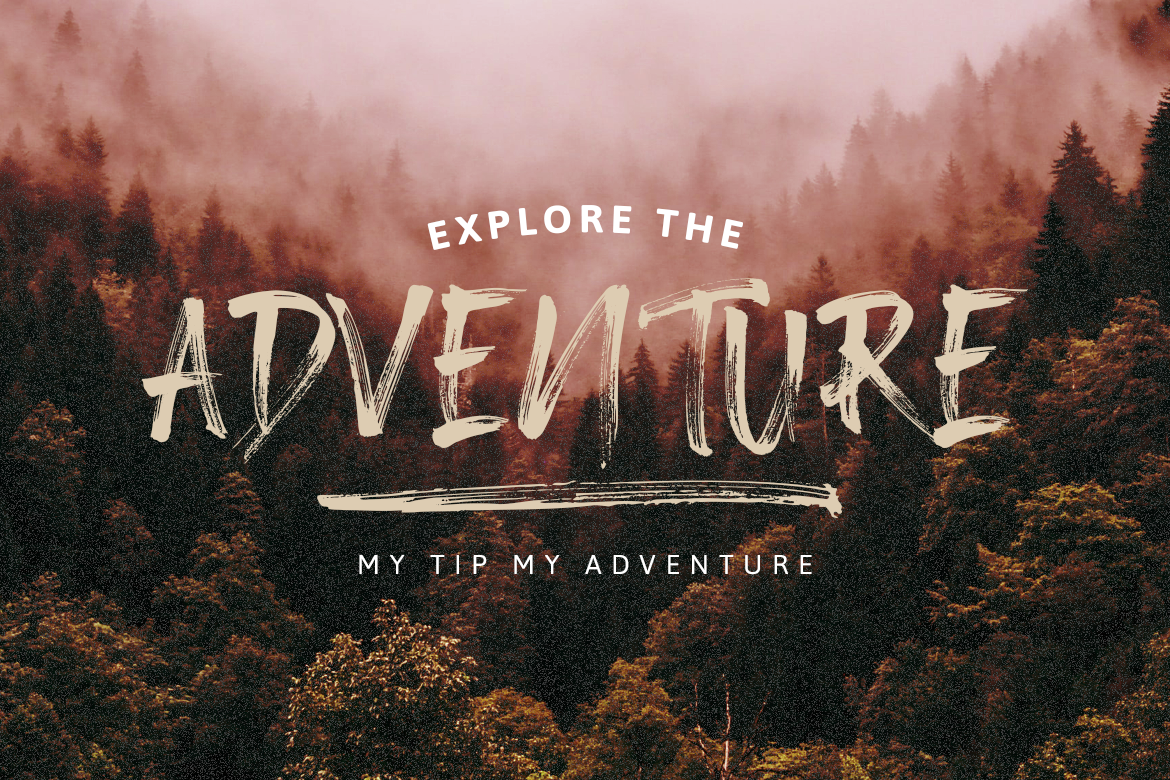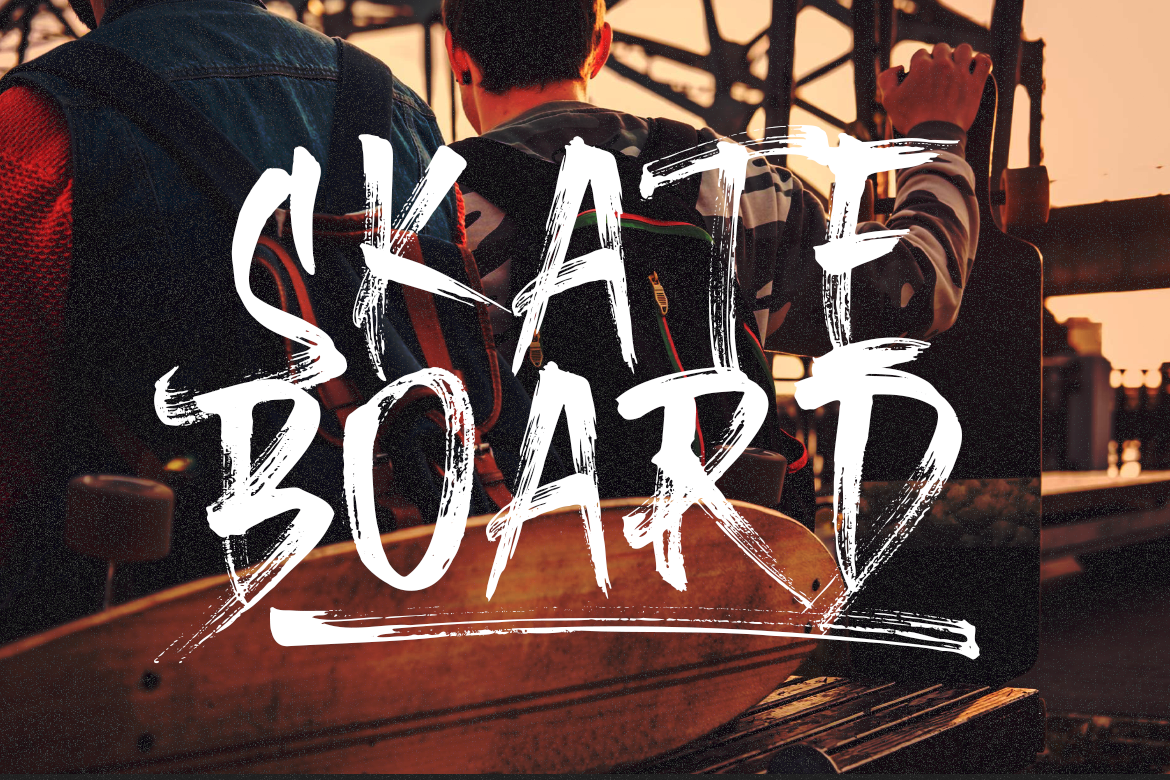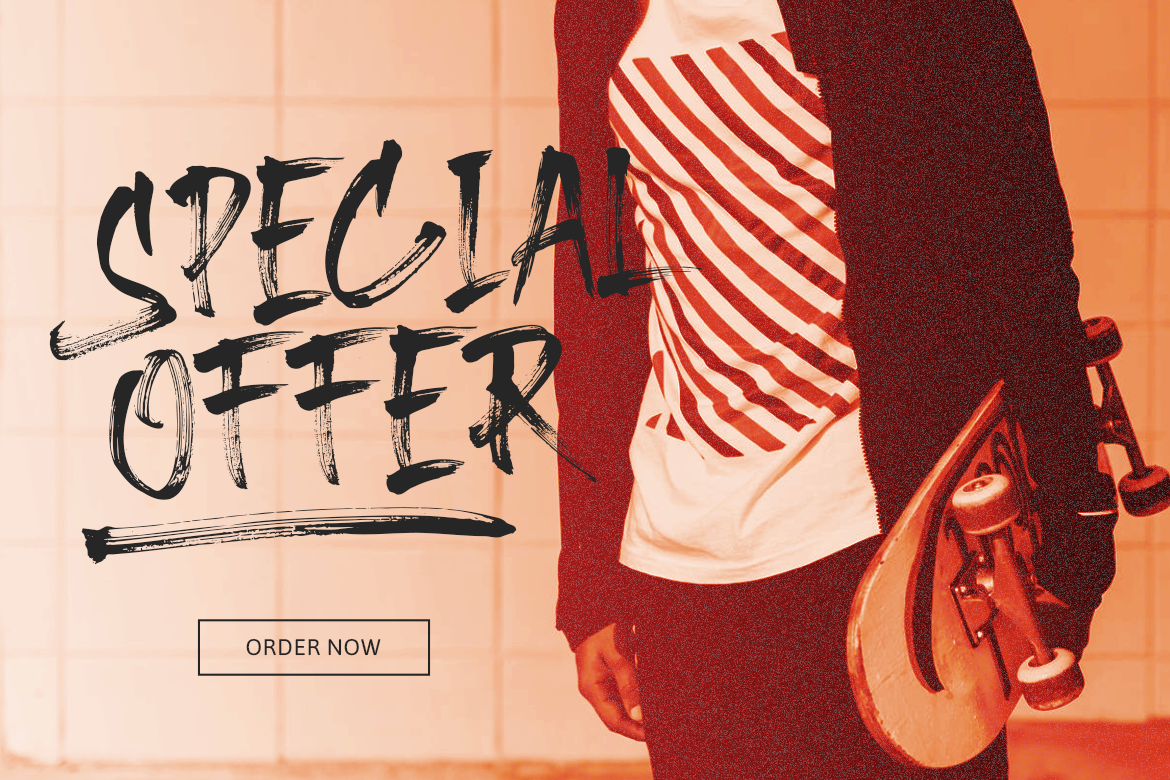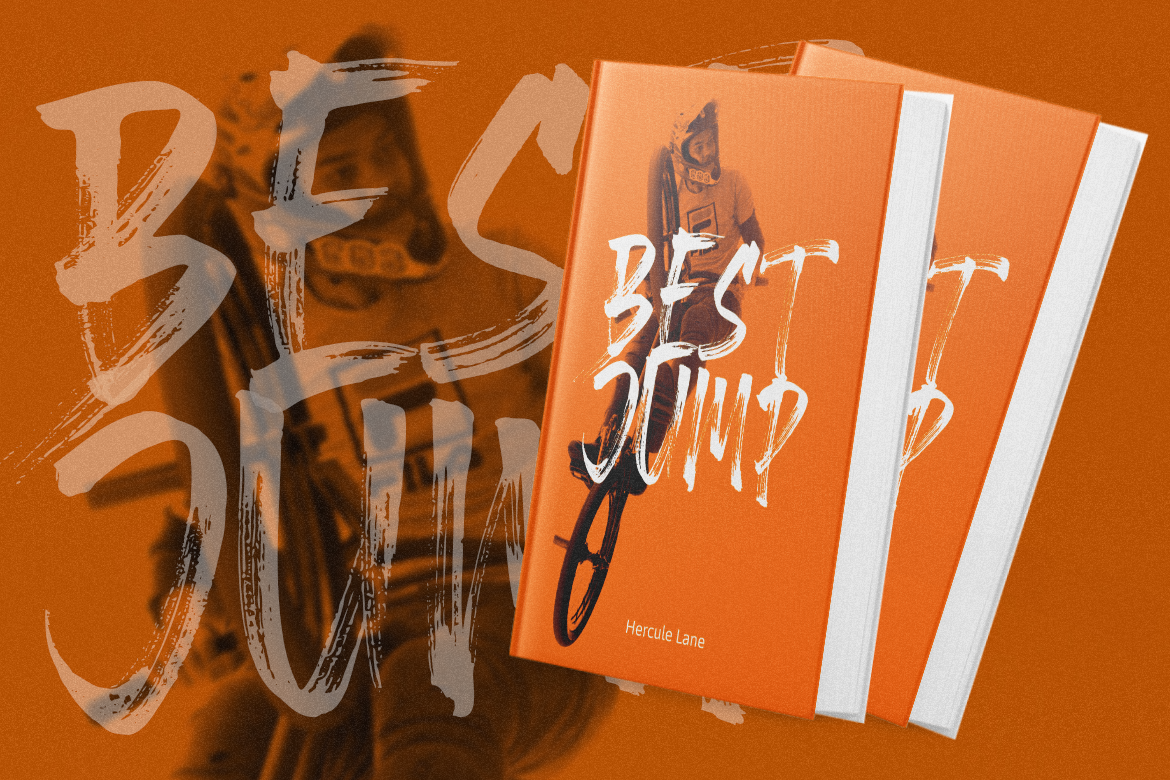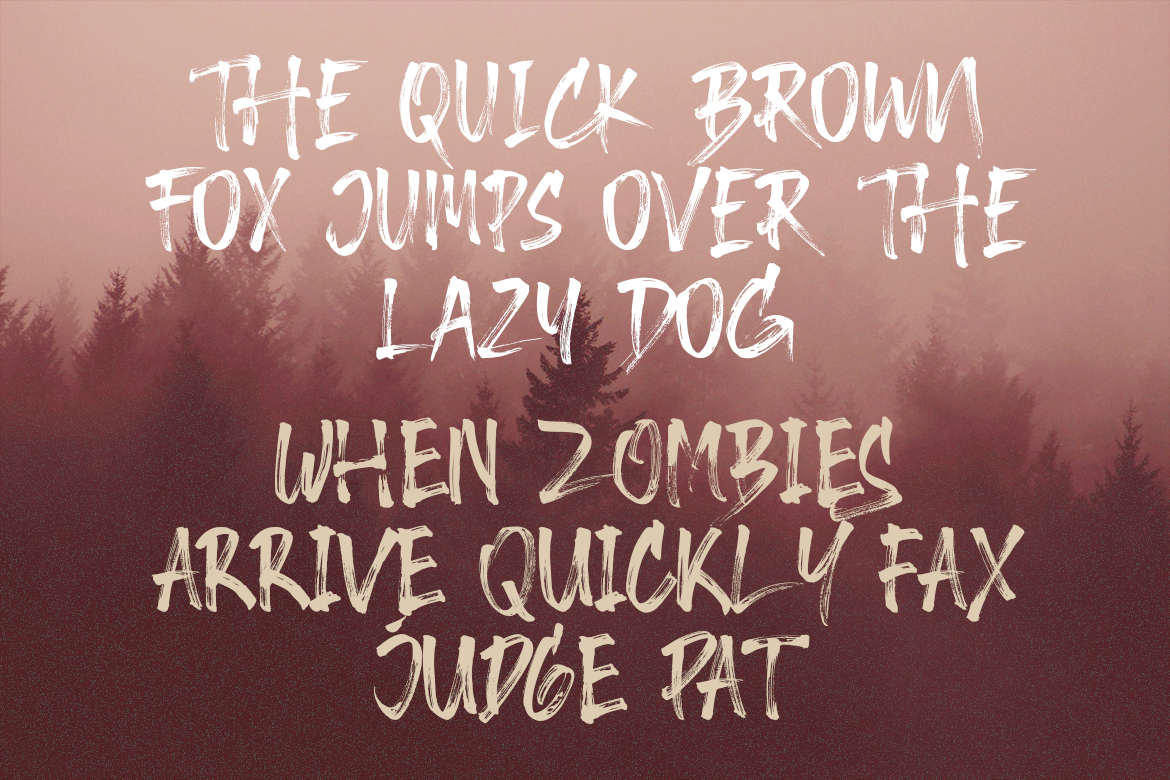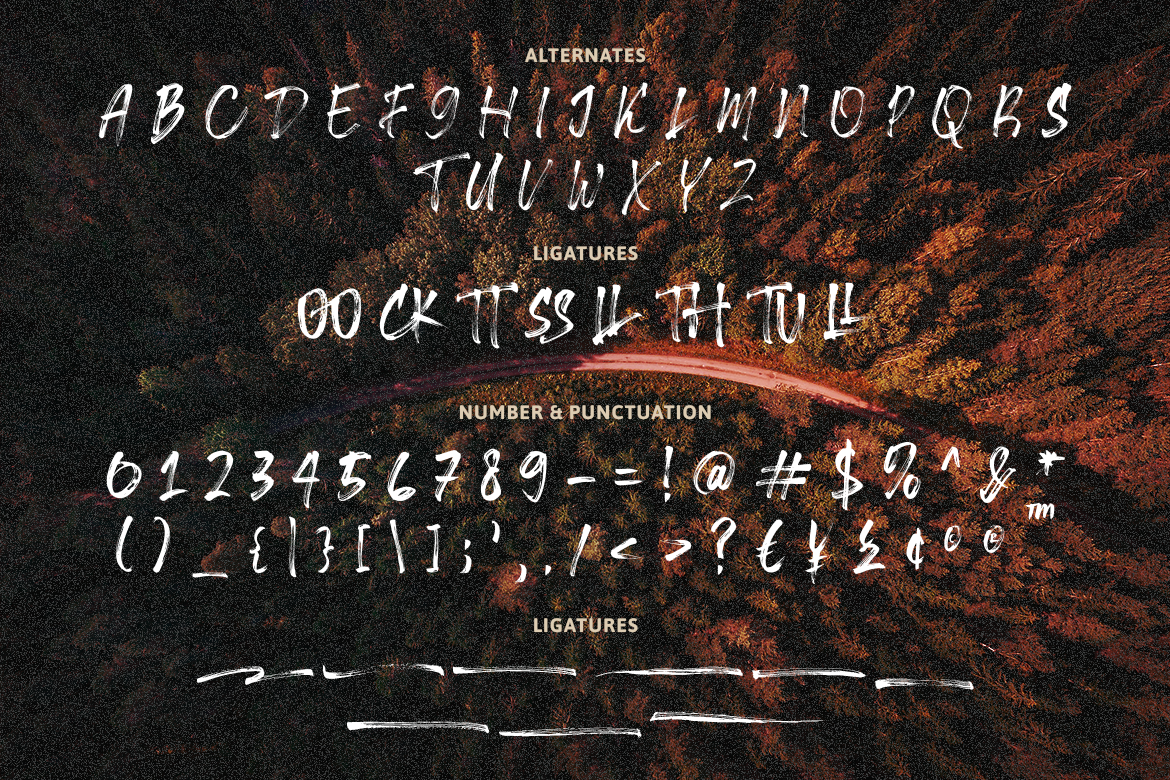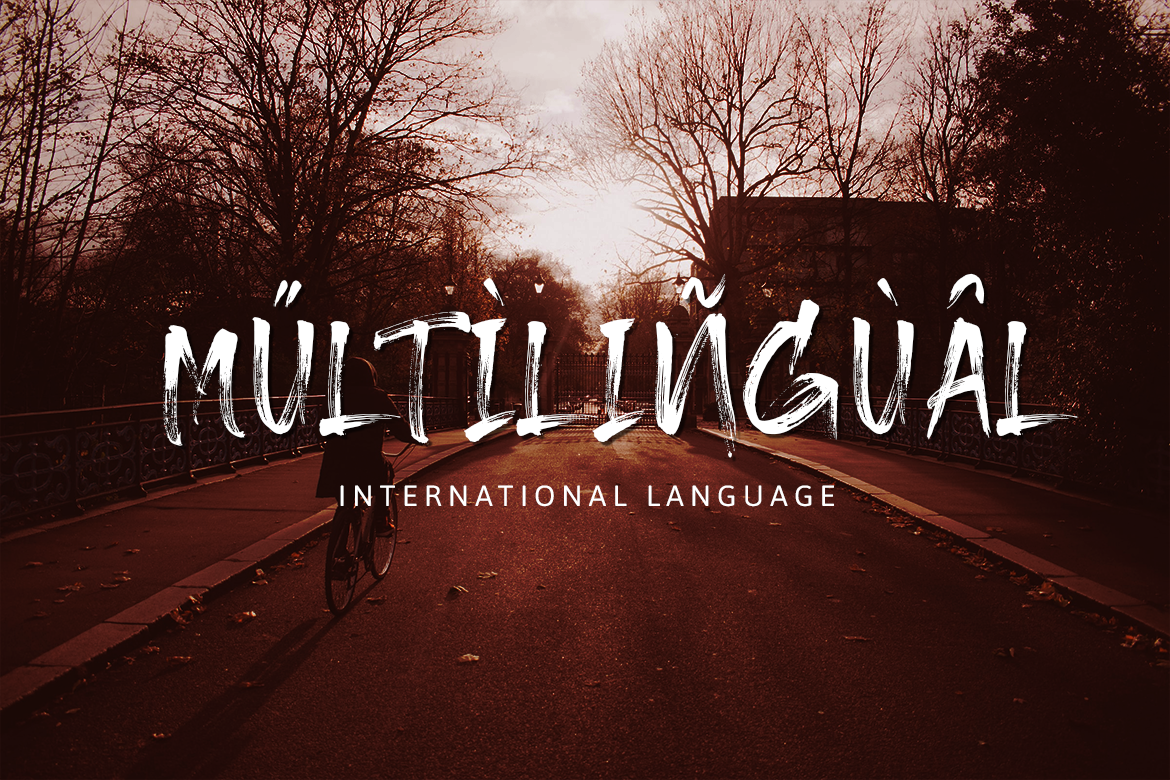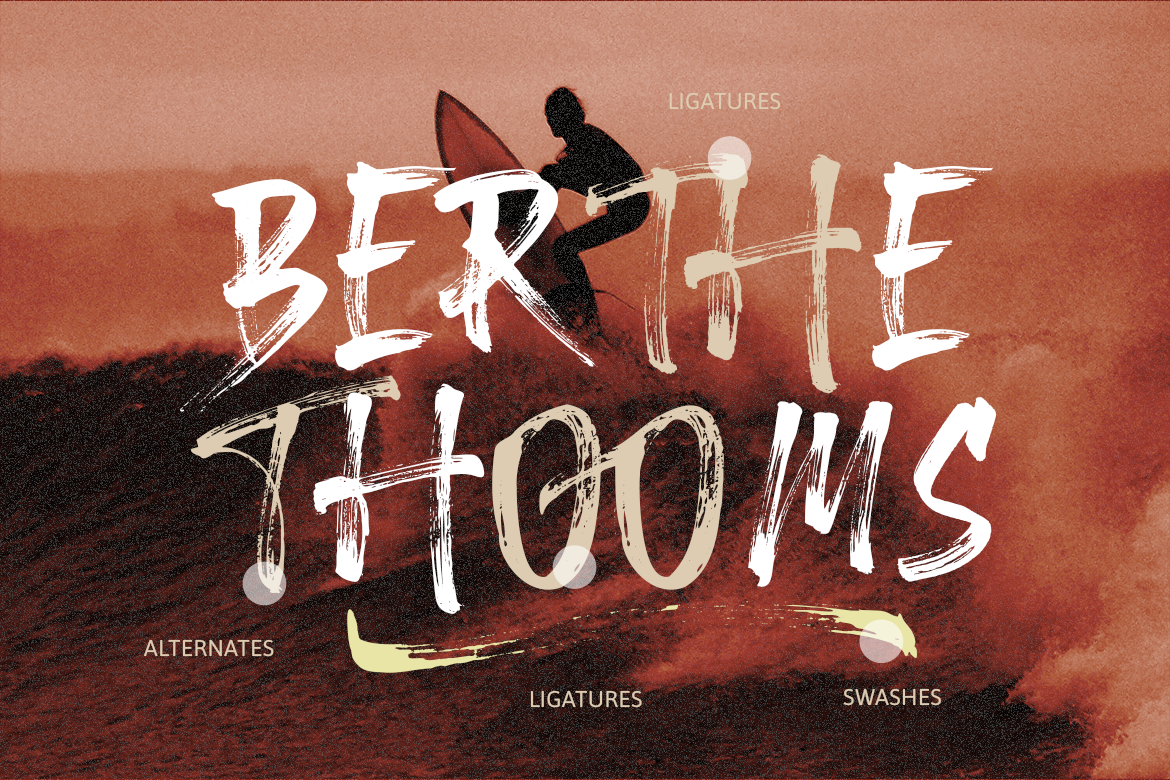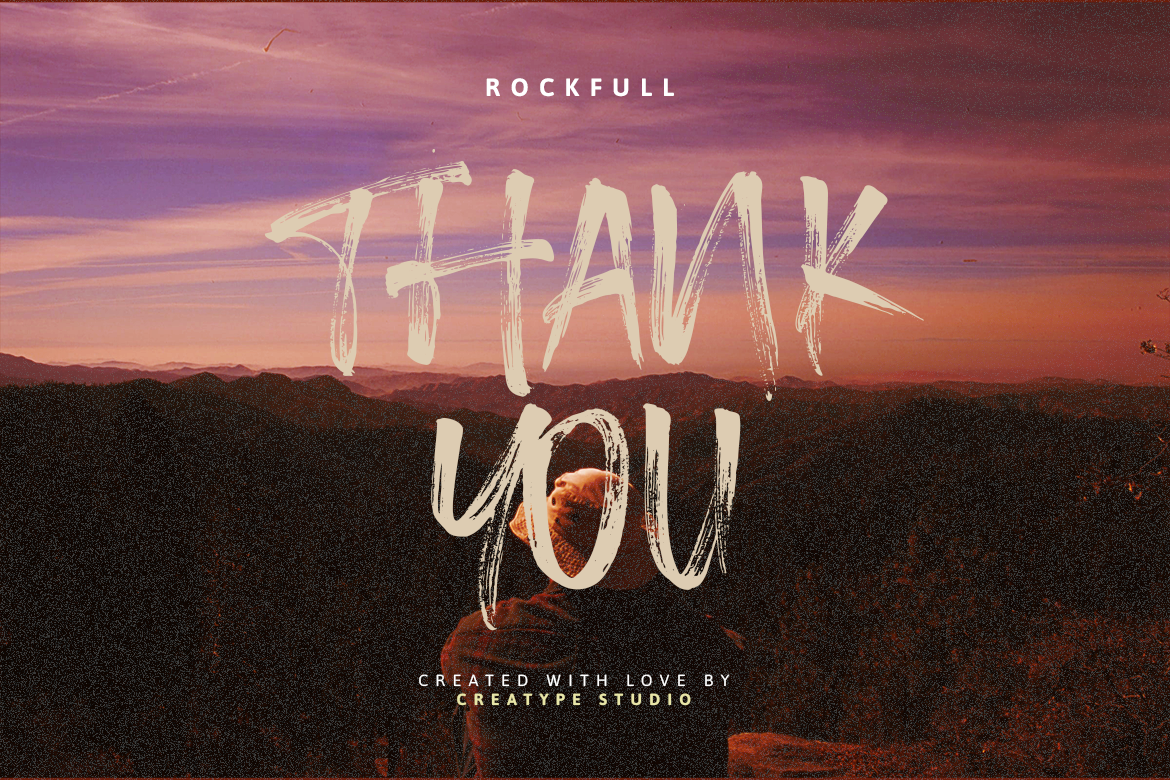
Rockfull Capital Brush
Rockfull is a typeface with detailed natural hand brushed looks that will give your projects fun vibes. Rockfull suits well for any design projects, such as logos, labels, posters, or other projects.
Rockfull is perfect for branding projects, logo, wedding designs, social media posts, advertisements, product packaging, product designs, label, photography, watermark, invitation, stationery and any projects that need handwriting taste.
- Ligature & Alternate